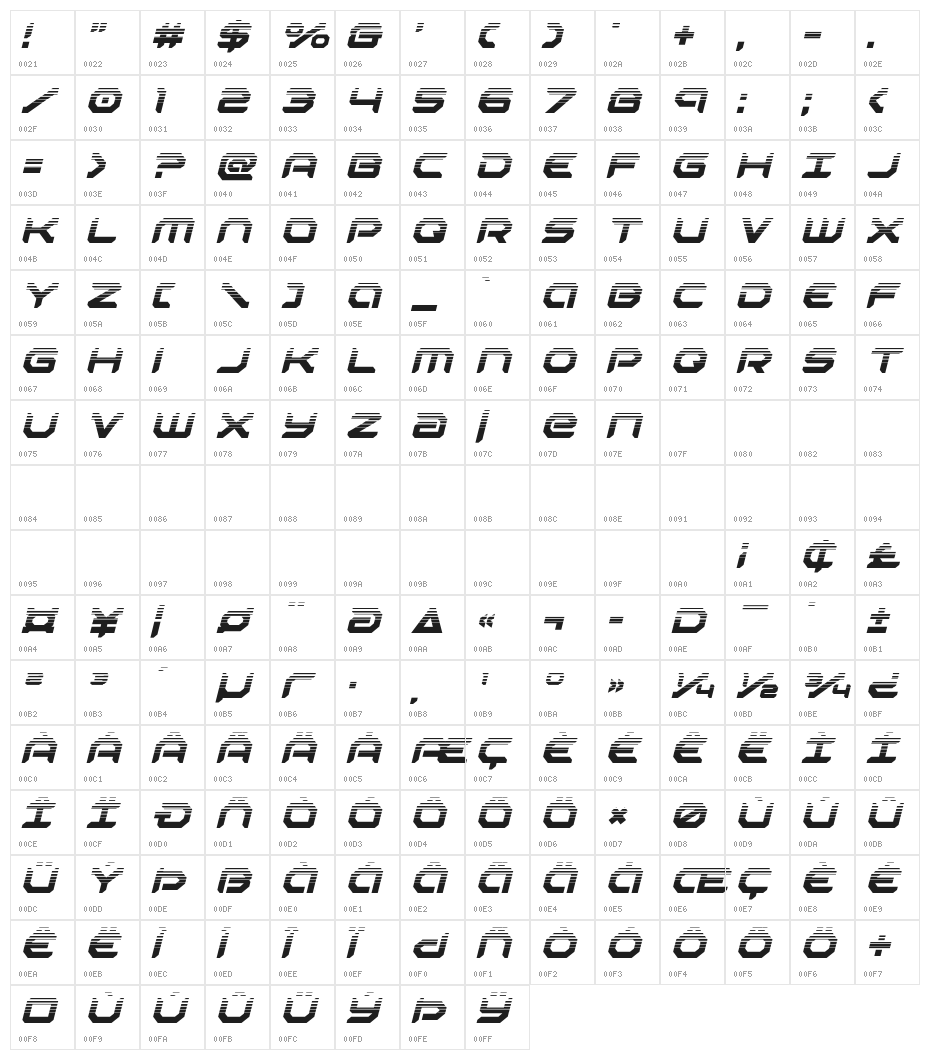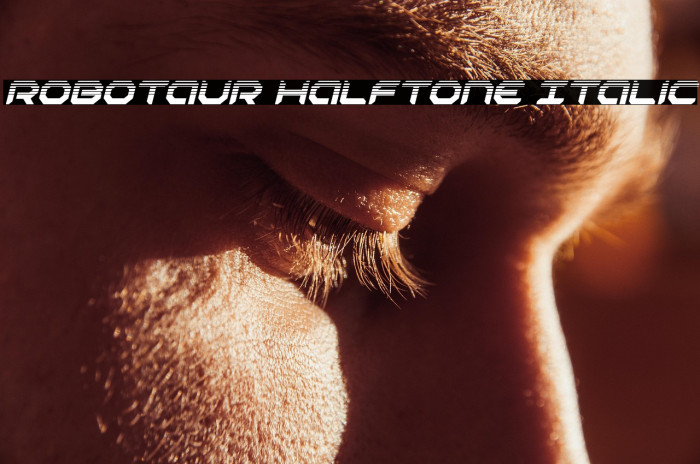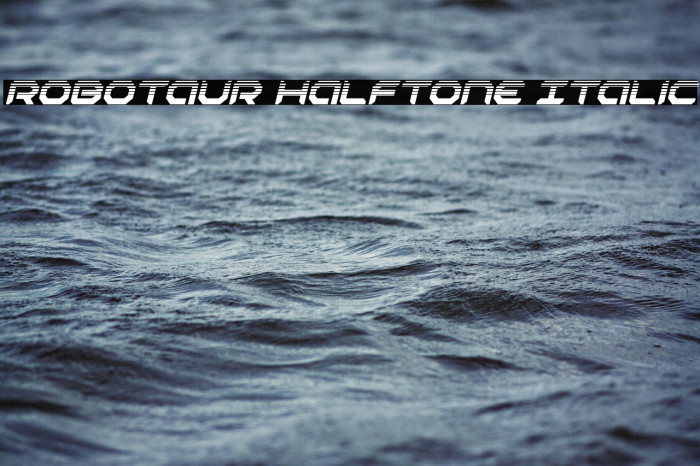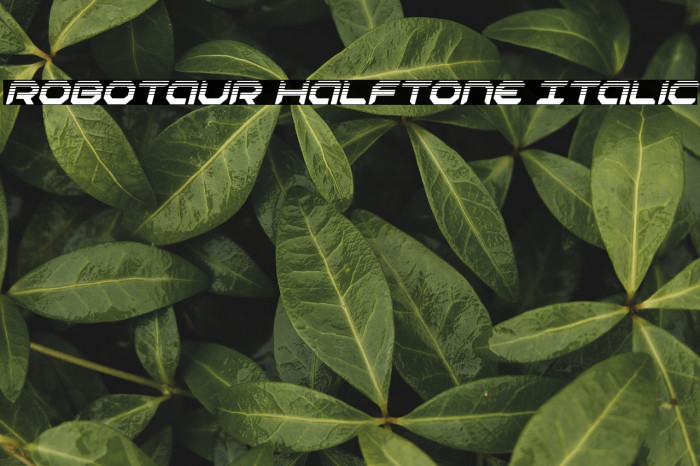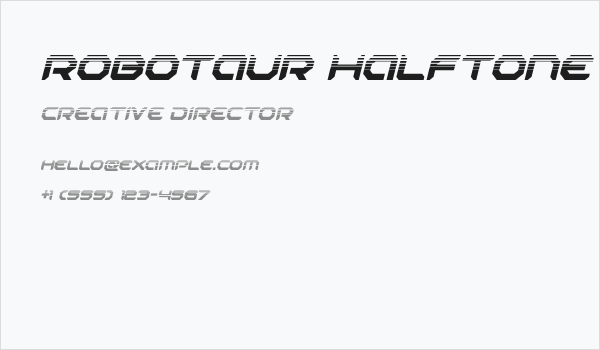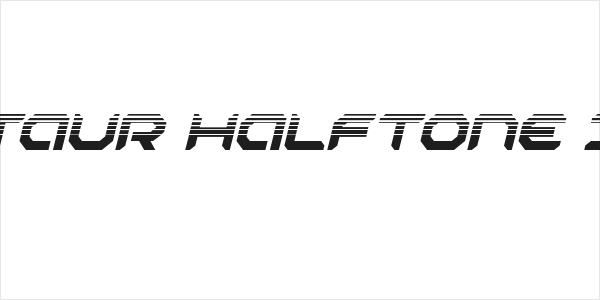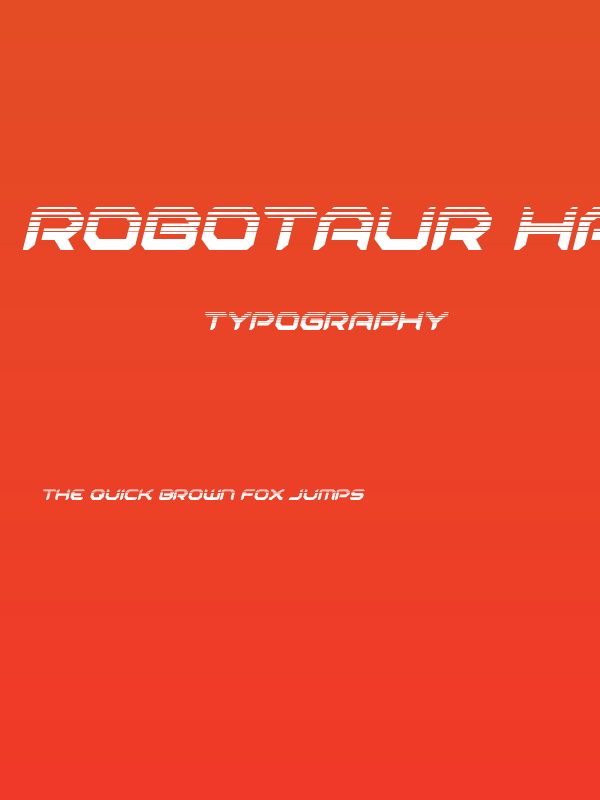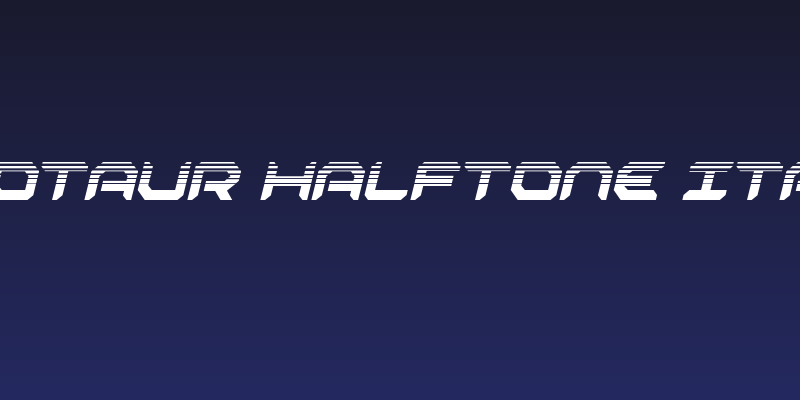
Robotaur Halftone Italic Font
Robotaur Halftone Italic Description
This font features a futuristic and dynamic design with a halftone effect that gives it a unique, digital appearance. The characters are italicized, adding a sense of motion and speed. Each letter is composed of segmented lines, creating a bold and striking visual impact. The uppercase and lowercase letters maintain a consistent style, with sharp angles and geometric shapes. The numbers and special characters follow the same design principles, ensuring uniformity across the font. This font is ideal for projects that require a modern and edgy look, such as technology branding, sci-fi themes, or digital art.
| Proposed Projects | Ideal for technology branding, sci-fi themes, digital art, and modern advertising. |